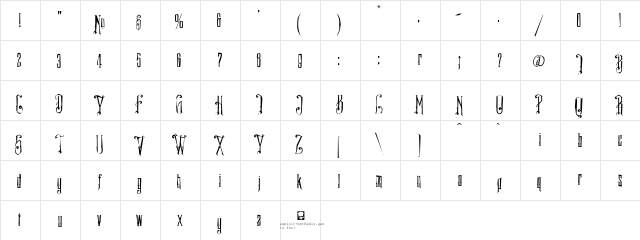
LHF Hamilton Ornate Regular
| Foundry | John Studden for Letterhead Fonts |
| Designer | John Studden |
Design Context for LHF Hamilton Ornate Typeface
LHF Hamilton Ornate is a composed and adaptable typeface that performs quietly and consistently across a wide range of design contexts.